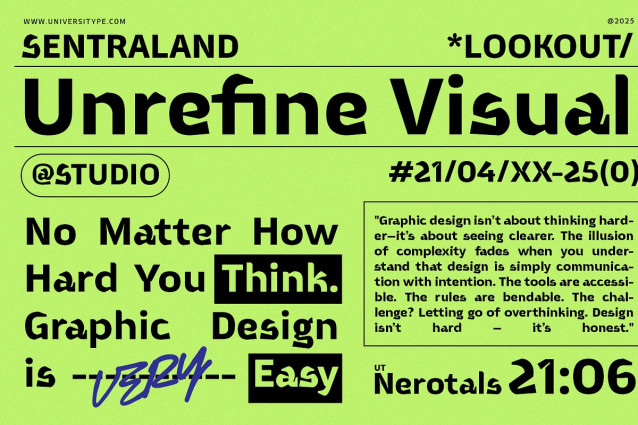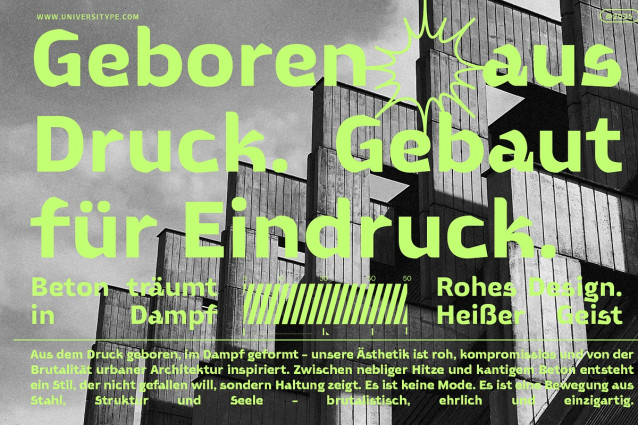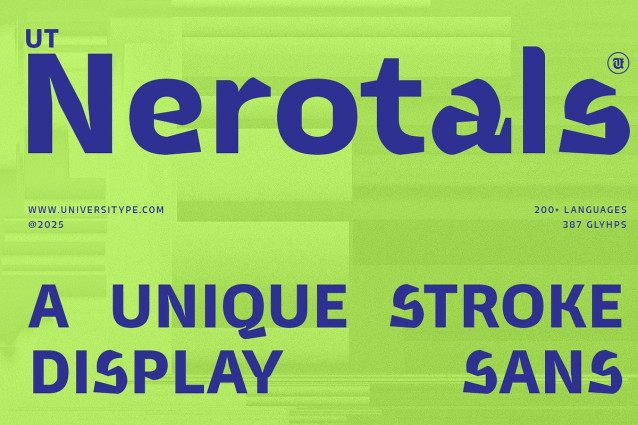
UT Nerotals Font
UT Nerotals Font is a bold, contemporary typeface that draws inspiration from modern sculptural forms. Its design reflects a harmonious blend of strength and fluidity, capturing the essence of three-dimensional art in a two-dimensional medium. The font’s wide letterforms and smooth curves convey a sense of stability and elegance, making it a versatile choice for various design applications.​